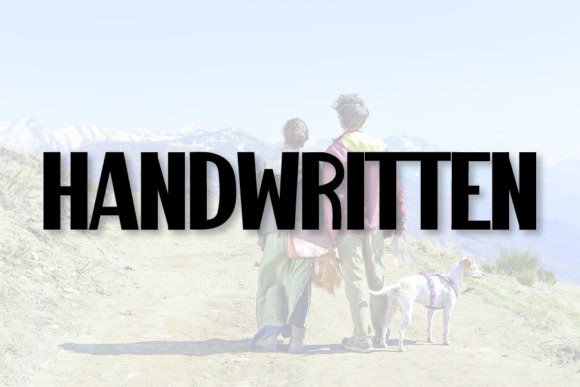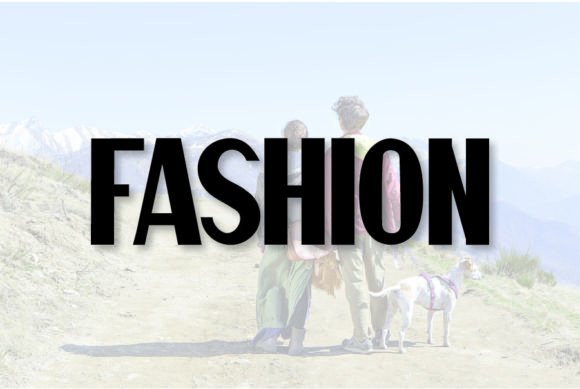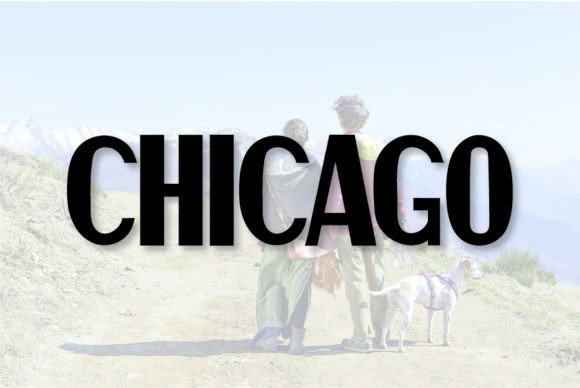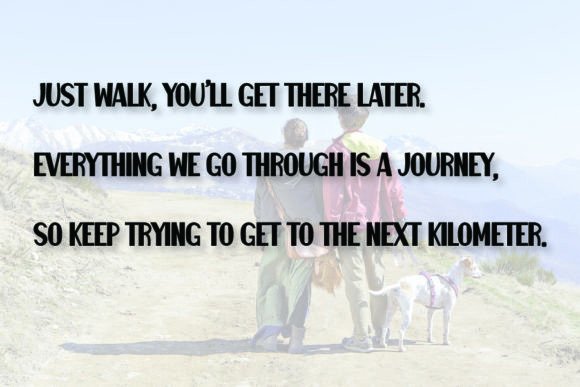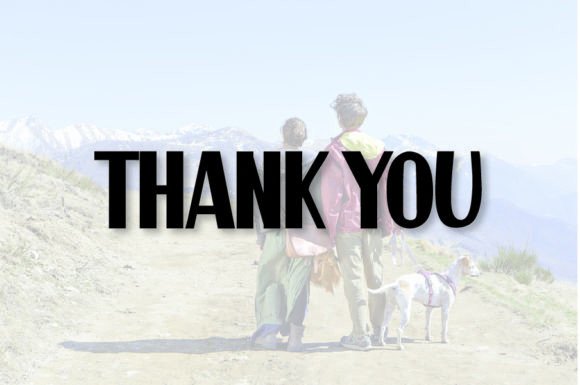
Introducing Family Font: The Perfect Addition to Your Design Arsenal
Are you a designer, crafter, or DIY enthusiast looking for a font that adds a touch of elegance and sophistication to your creations? Look no further than Family Font, a cool display font that’s perfect for custom designs, DIY crafts, and any project that needs a beautiful touch.
What is Family Font?
Family Font is a stylish and versatile display font that’s designed to make your creations stand out. With its unique blend of modern and classic elements, this font is perfect for adding a personal touch to your designs. Whether you’re creating custom invitations, greeting cards, or social media graphics, Family Font is the perfect choice.
Key Features of Family Font
- Unique and Stylish Design: Family Font boasts a distinctive design that’s both modern and elegant, making it perfect for a wide range of applications.
- High-Quality Letters: The font features high-quality letters with precise curves and lines, ensuring that your designs look professional and polished.
- Easy to Read: Despite its stylish design, Family Font is easy to read, making it perfect for use in body text as well as headings.
- Multilingual Support: Family Font supports multiple languages, making it a great choice for designers and crafters who work with international clients.
Use Cases for Family Font
Family Font is a versatile font that can be used in a wide range of applications, including:
- Custom Designs: Use Family Font to add a personal touch to your custom designs, from invitations and greeting cards to social media graphics and posters.
- DIY Crafts: Add a touch of elegance to your DIY crafts, from scrapbooking and card making to crafting and woodworking.
- Branding and Marketing: Use Family Font to create professional-looking branding and marketing materials, from logos and business cards to brochures and flyers.
Why Choose Family Font?
So why choose Family Font over other fonts on the market? Here are just a few reasons:
- Unique Design: Family Font boasts a unique design that’s sure to make your creations stand out.
- High-Quality: The font is made from high-quality letters with precise curves and lines, ensuring that your designs look professional and polished.
Tips for Using Family Font
Here are a few tips for getting the most out of Family Font:
- Use it as a Display Font: Family Font is perfect for use as a display font, so use it to add a touch of elegance to your headings and titles.
- Experiment with Colors: Family Font looks great in a wide range of colors, so don’t be afraid to experiment and find the perfect color for your design.
- Pair it with Other Fonts: Family Font pairs well with a wide range of other fonts, so try pairing it with a sans-serif font for a modern look or a serif font for a more traditional look.